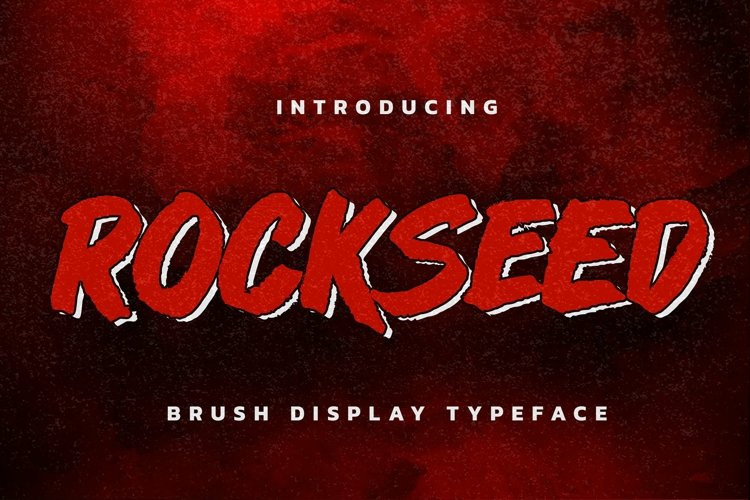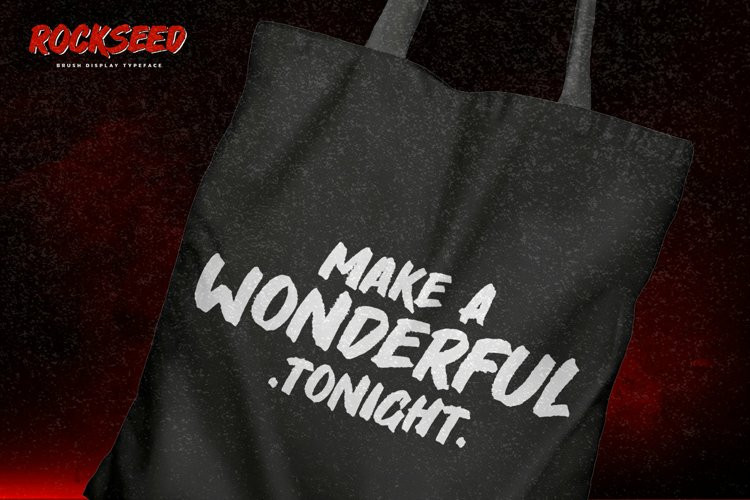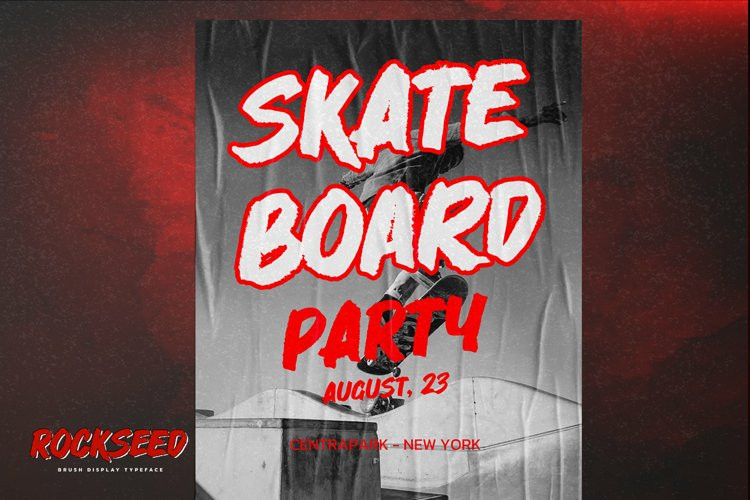
Rockseed Font
Rockseed FontHello Everyone, introduce our new product Font ROCKSEED it is Brush Display Typeface .This is a Textured Natural Style and classy style with a clear style and dramatic movement.
This font ROCKSEED is great for your next creative project such as logos, printed quotes, invitations, cards, product packaging, headers, Logotype, Letterhead, Poster, Design this font is great for your creative projects such as watermark on photography, and perfect for logos & branding, invitation,advertisements,product designs, stationery, wedding designs,label ,product packaging, special events or anything that need handwritting taste.
That is has charming, authentic and relaxed characteristic more natural look to your text.